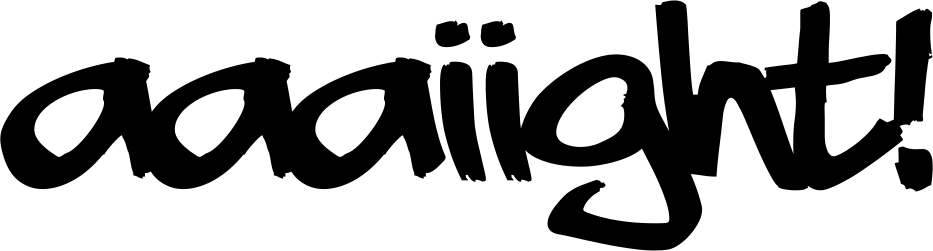
Aaaiight! Font
Why not utilize this artistic graffiti font that is magnificent? Aaaiight Offers characters that have a natural hand-drawn paintbrush style to their design, it’s informal and it gives a fun, playful, and trendy feel. This graffiti font is available in 2 styles.
Unfortunately, there are no capital alphabets included but it contains lowercase letters, numbers, and punctuation. It’s best for clothing, games, posters, branding, movies, or wherever you wish to carry out an awesome, unique look for your typography.